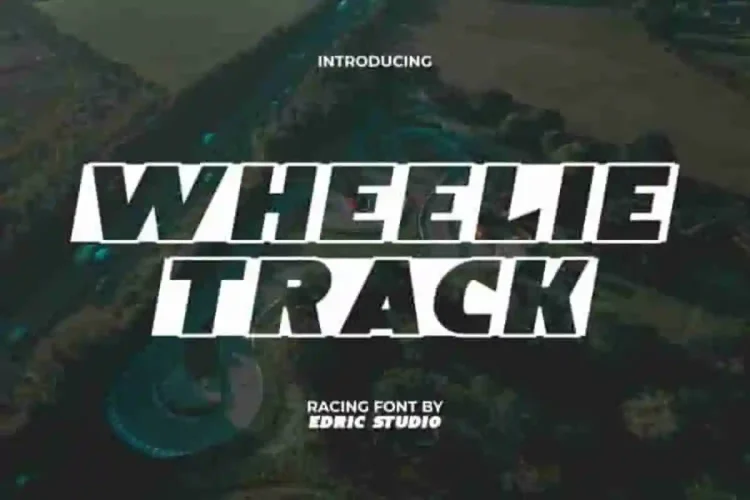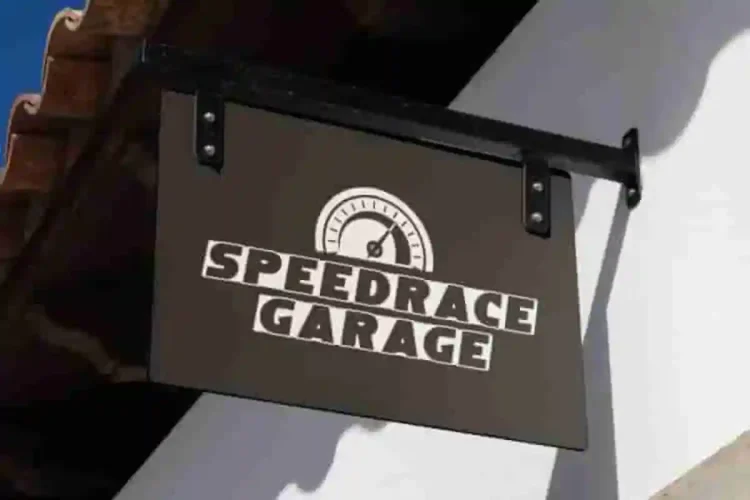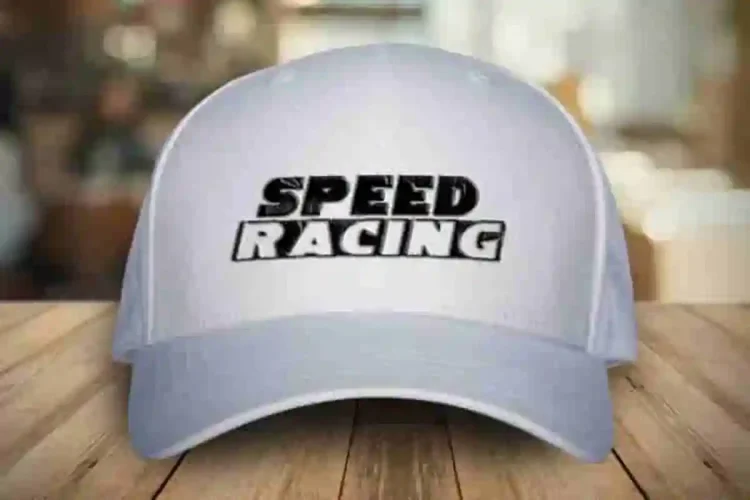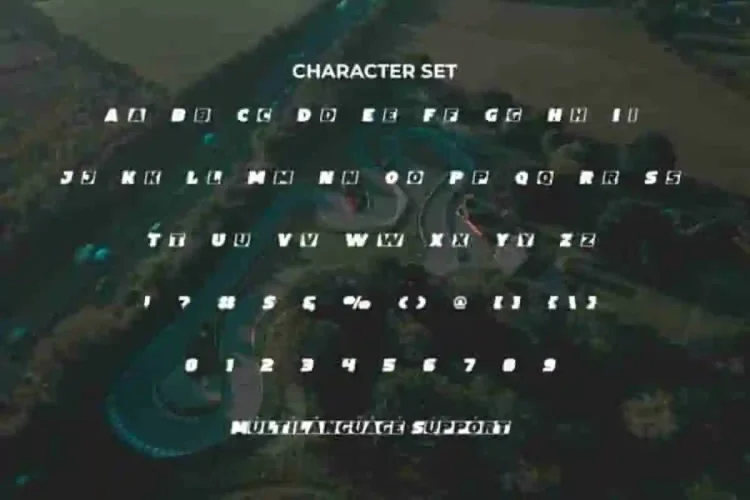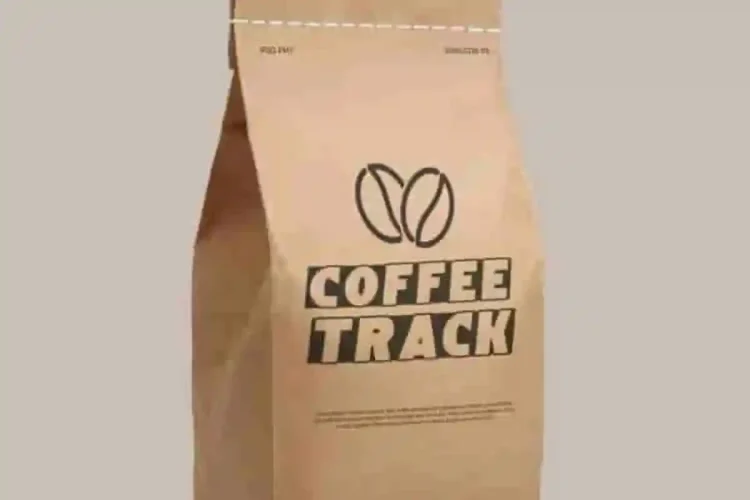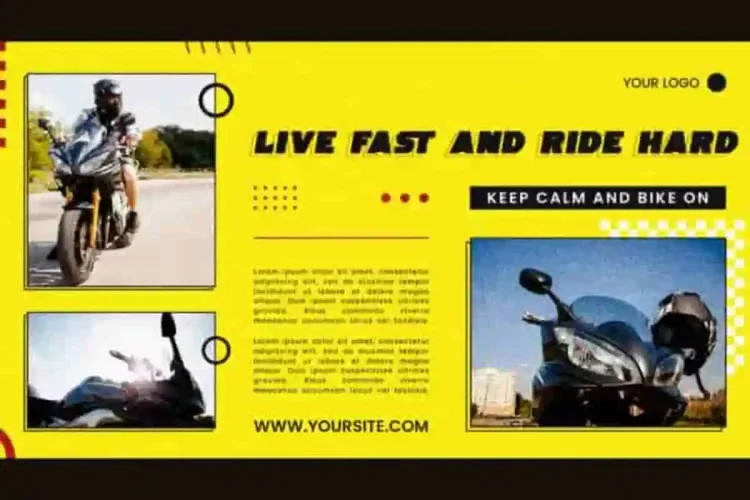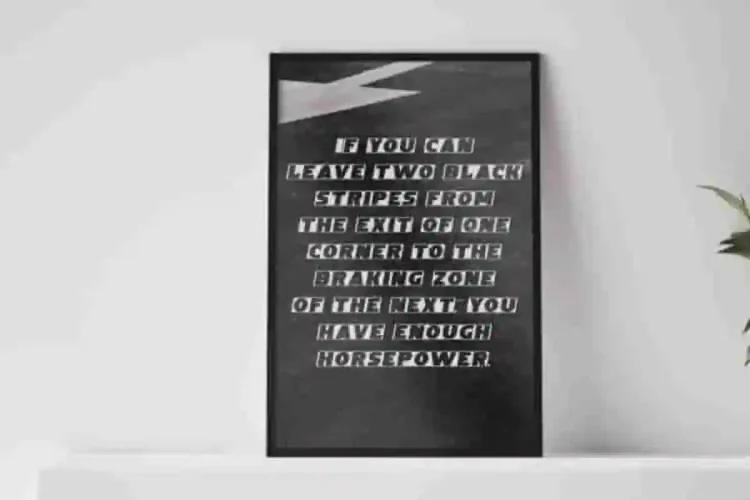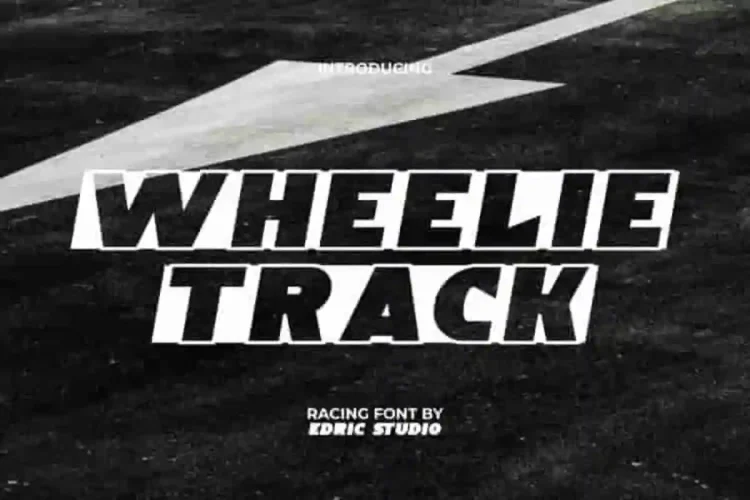
Wheelie Track Modern Display Font
Wheelie Track Modern Font is a modern display font with a racing and sports theme. With bold, italicized shapes and square yet dynamic strokes, this racing-inspired typeface delivers strength, energy, and style in every letter. It is so versatile that it works in both large and small sizes. This font is perfect for banners, blogs, brochure, key ring design, logos, mockup, poster, printed materials, product packaging, signboard, template, title, website, and more.
Wheelie Track Display Font This versatile typeface comes with a full set of ALL CAPS letters (uppercase and lowercase), numbers, punctuation, and symbols. Its unique outlined letter style creates a creative typographic harmony that feels both sporty and modern—perfect for automotive brands, racing games, sports events, vehicle workshops, or fashion and merchandise with an edge. Explore its endless variations and feel the satisfying sensation when you type using this font! Perfect for accessories and merchandise, apparel, automotive, coffee shop, fashion, graphic design, racing games, sports events, transport advertising, vehicle workshops, and more.